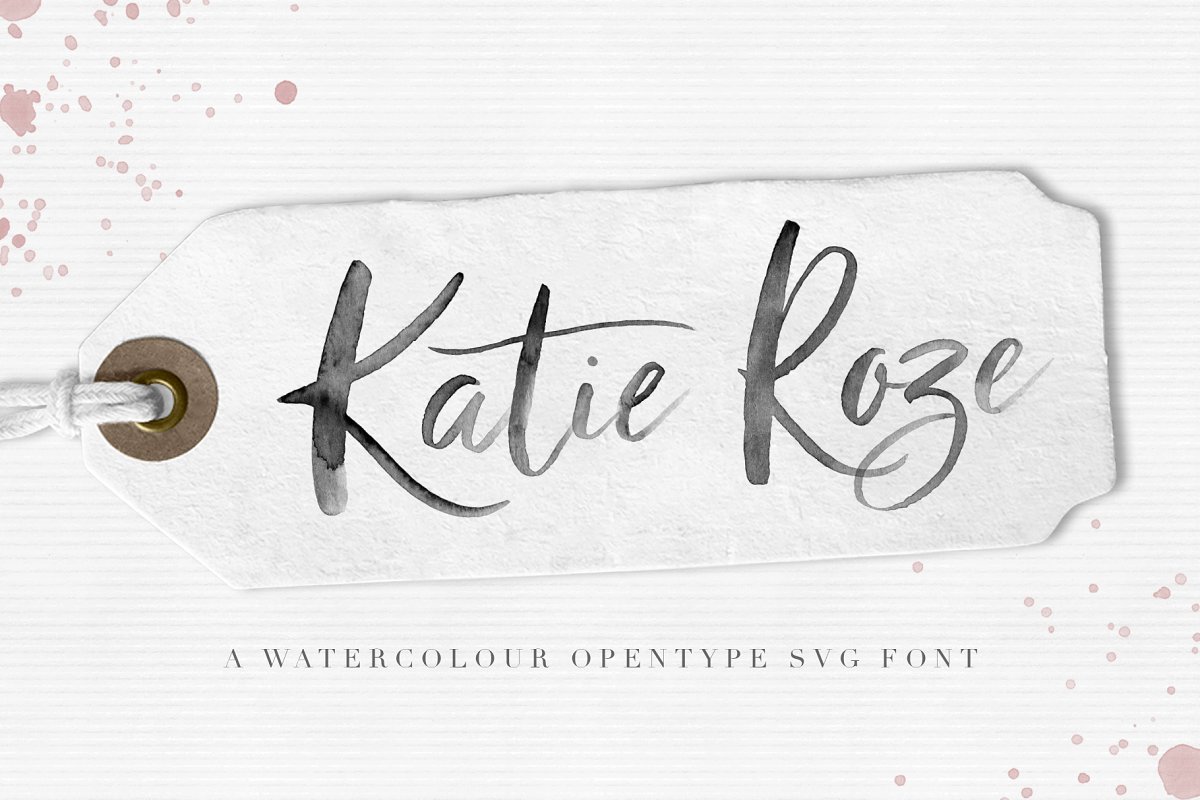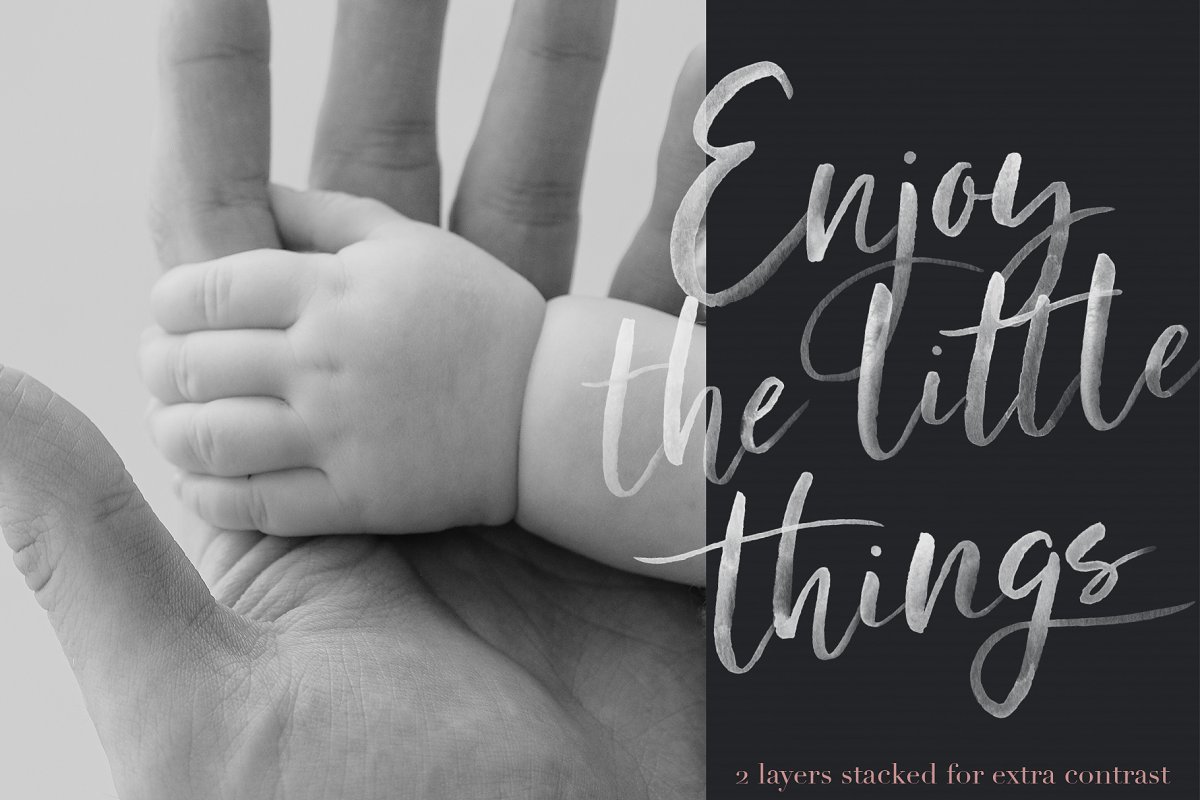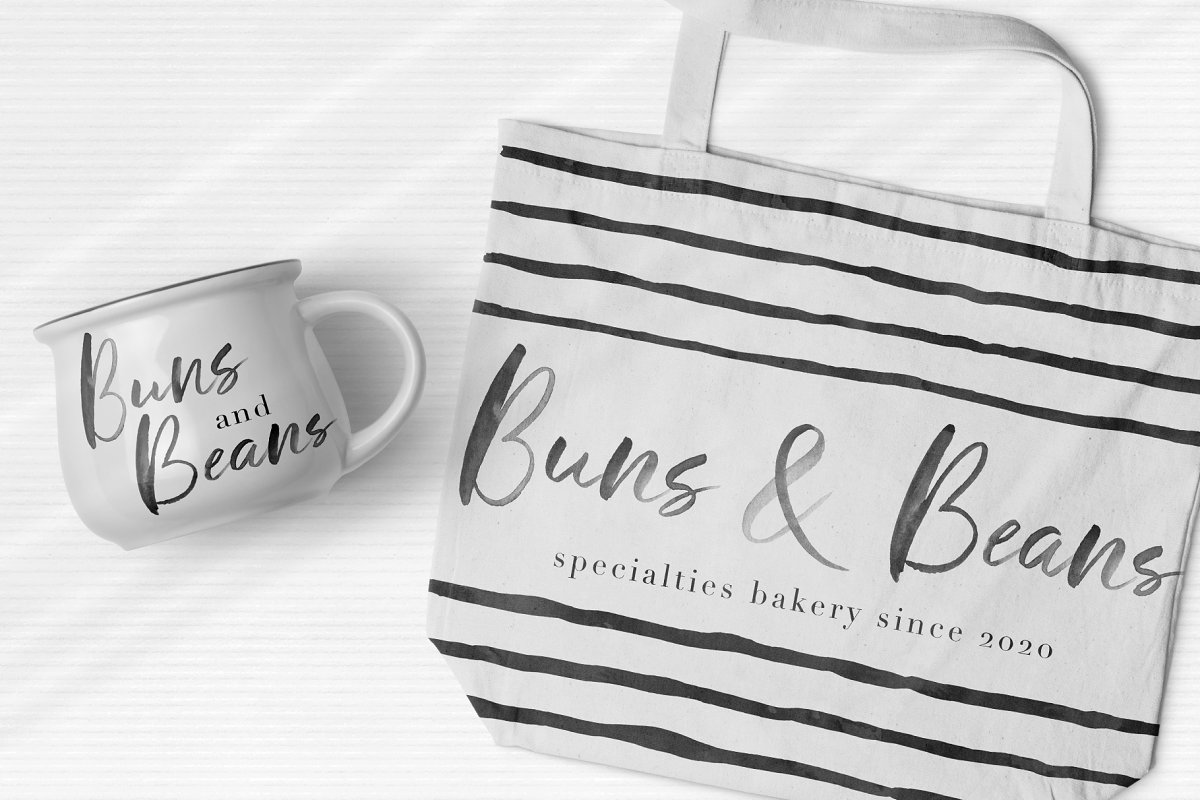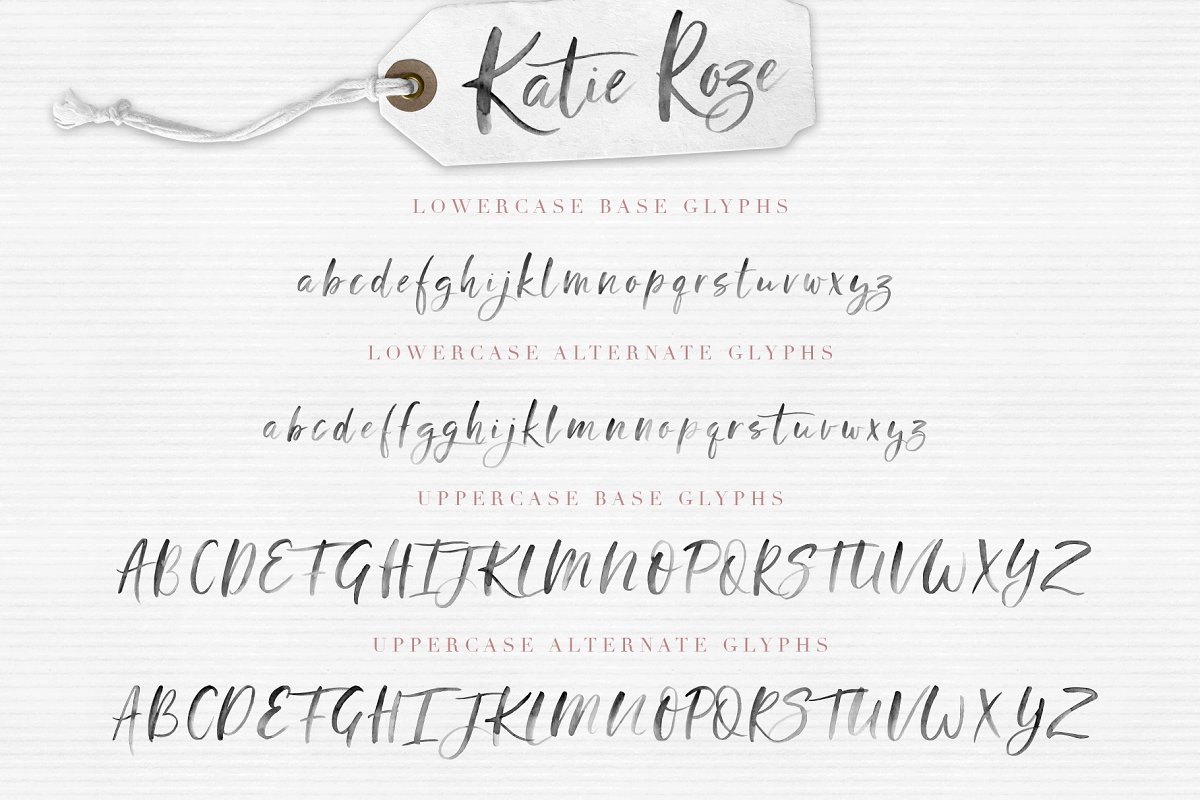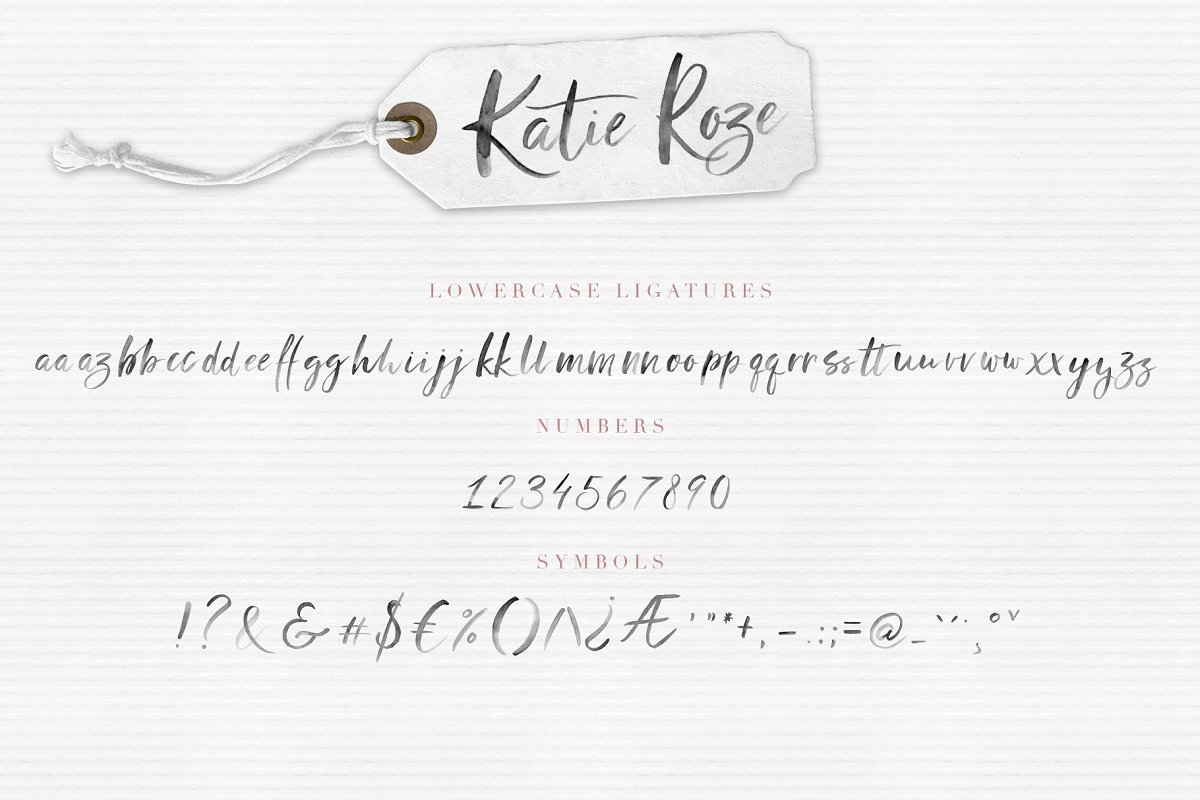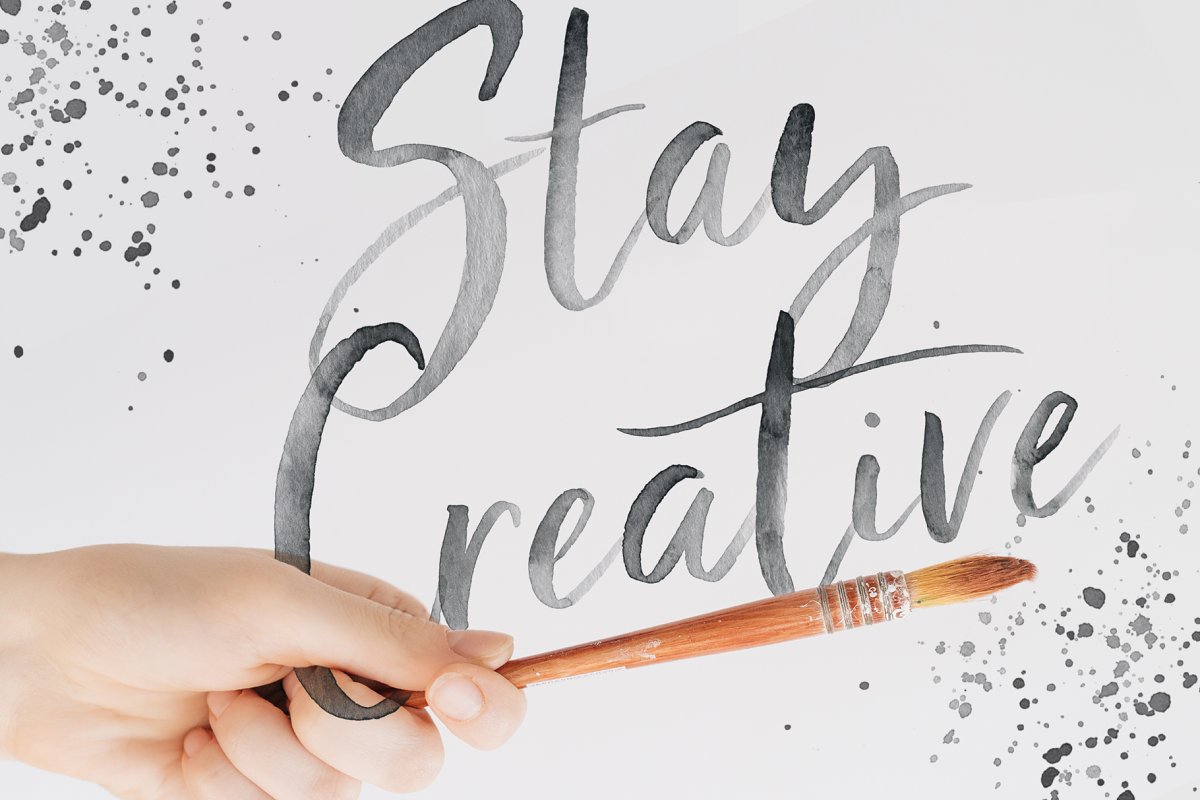
About the Katie Roze Watercolor Font
Katie Roze Watercolor Opentype SVG FontMeet Katie Roze, an elegant watercolour font that’s very suitable for headers, logo’s, social media posts and your other creative projects that can use a flowy touch, IMPORTANT: Opentype SVG is still limited to certain programs, Please make sure you have a Photoshop version of CC 2017 or above or Illustrator CC 2018 and above
This font has alternates for each glyph and a set of ligatures as well, See the previews and read below on how to acces them manually, If you’d like to recolour the font, you can do so by adding a color overlay in the layer blending options, The transparency of the font will remain preserved